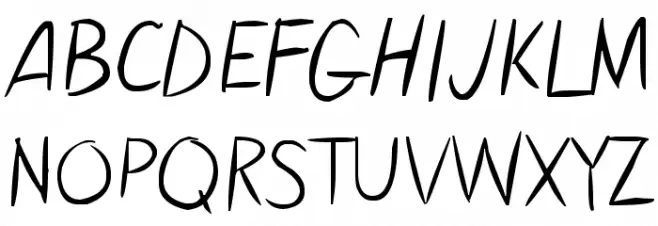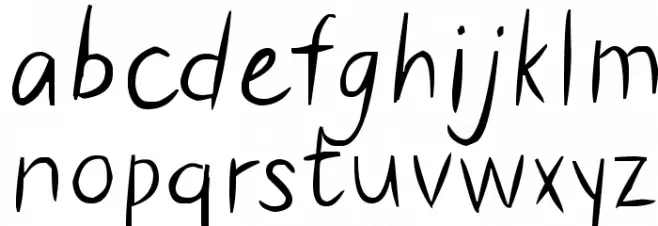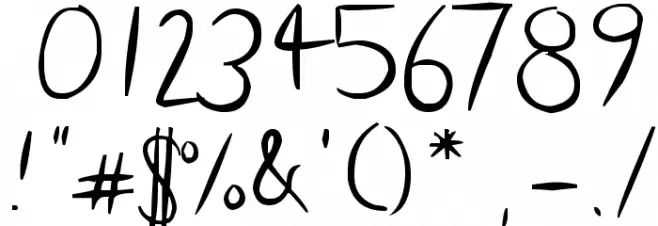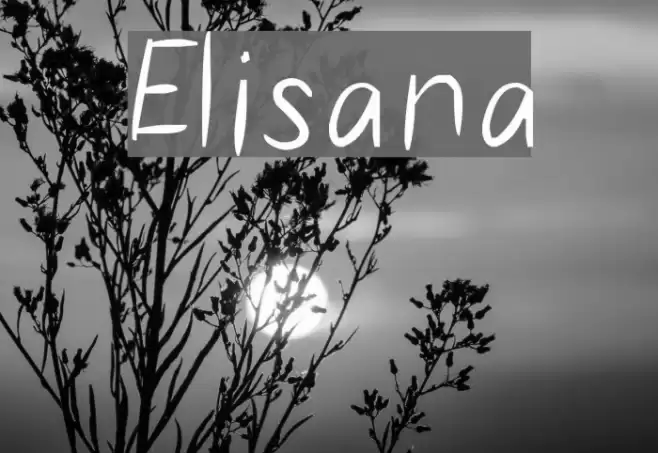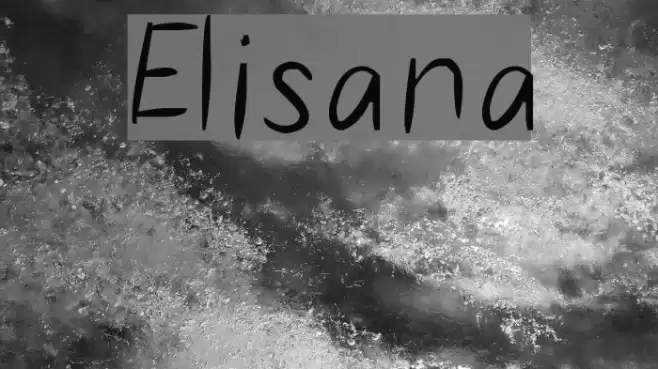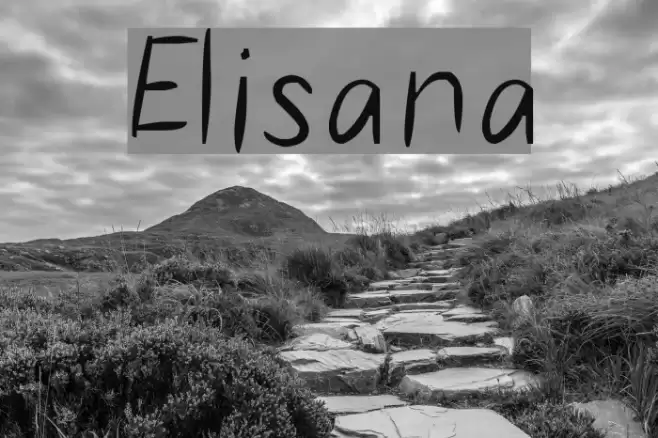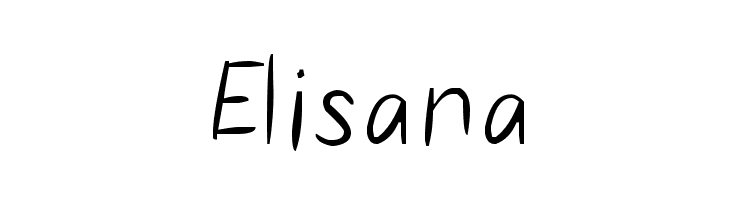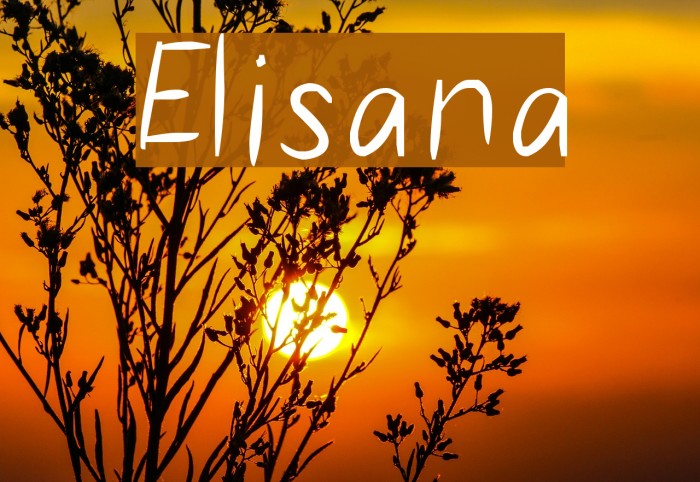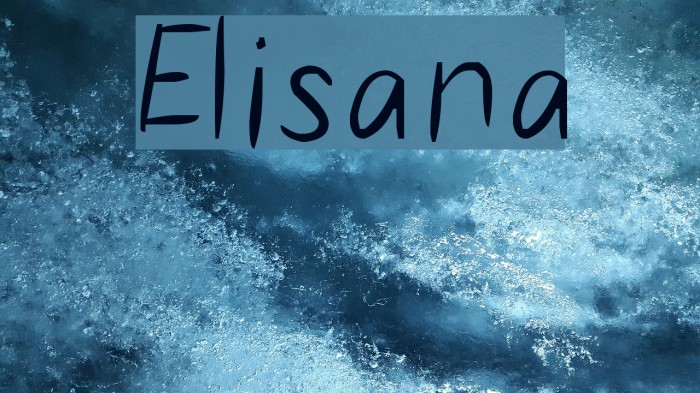
Elisana
This font features a playful and casual handwritten style, characterized by its irregular strokes and slightly tilted letters. The uppercase letters are tall and slender, while the lowercase letters maintain a consistent flow, enhancing readability. Numbers are distinct and easy to differentiate, adding to the font's versatility. The special characters are creatively designed, maintaining the overall whimsical aesthetic. This font exudes a friendly and approachable vibe, making it suitable for a variety of informal applications.
A playful handwritten font with irregular strokes and a casual vibe.
- Proposed Projects: Ideal for greeting cards, children's books, personal blogs, and creative branding projects.
- Overall Style: Casual
- Use Case: Headlines, Informal text, Creative projects